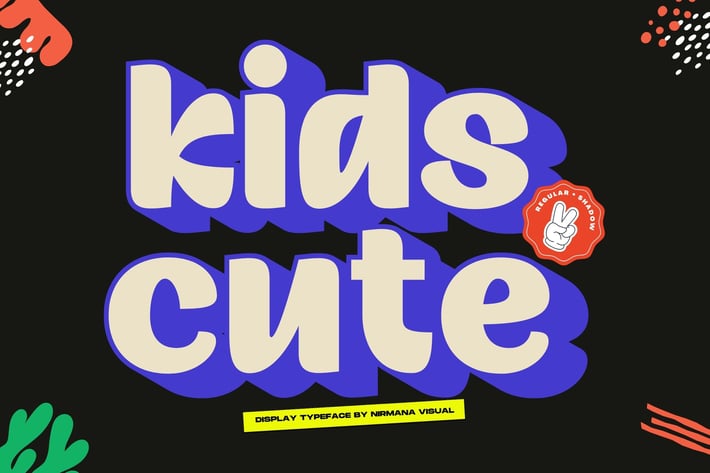
Kids Cute - Children Font
Kids Cute Unique & Playful sans serif serif.
Kids Cute offers beautiful typographic harmony for a diversity of design projects, including logos & branding, social media posts, advertisements & product designs.